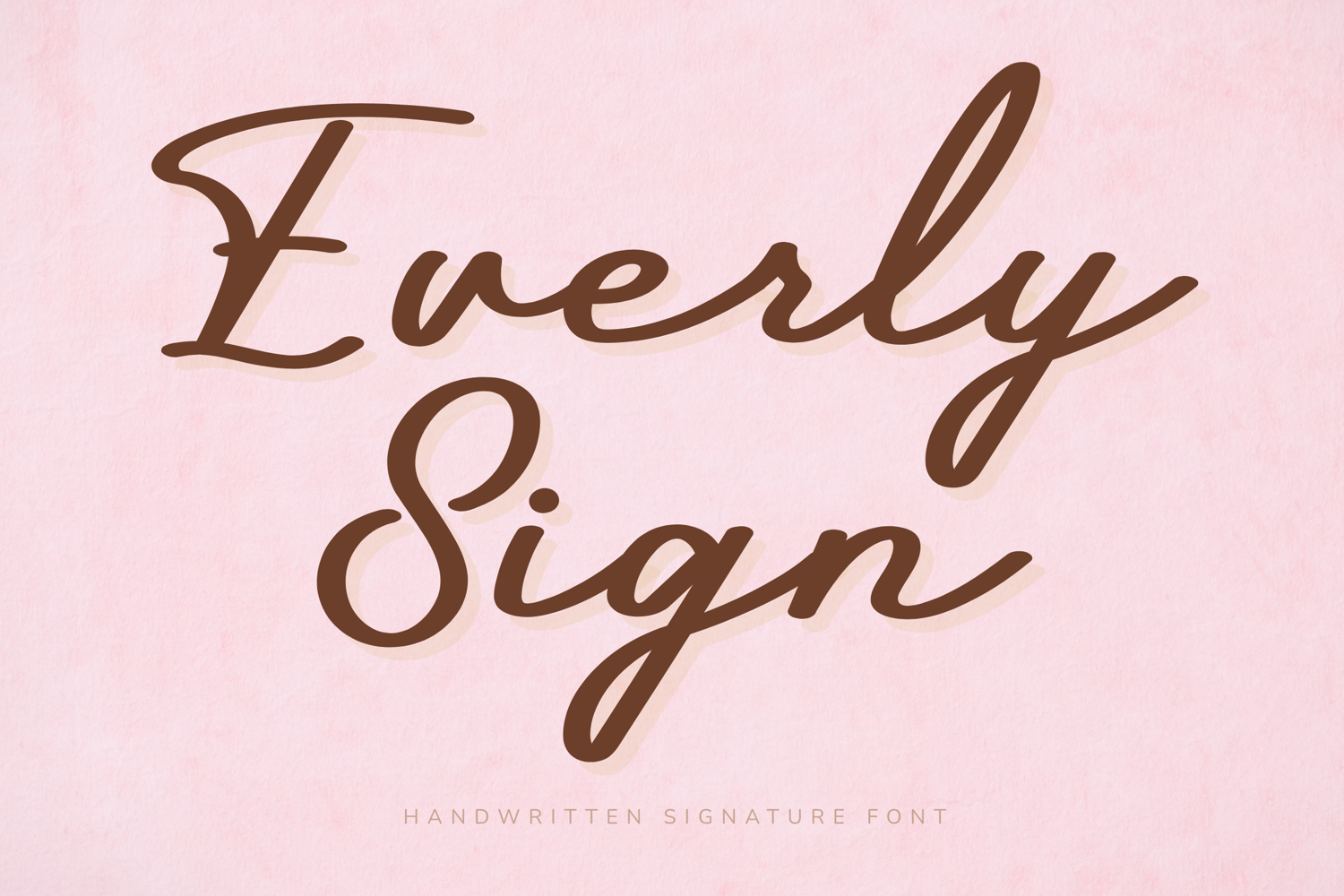
Everly Sign - Handwritten Signature Font
Everly Sign – Handwritten Signature Font
Everly Sign is a graceful and sophisticated handwritten signature font designed to bring a soft, feminine, and luxurious touch to your creative projects. With its flowing strokes, elegant loops, and authentic handwritten feel, this font perfectly captures the beauty of modern signatures.
Inspired by the timeless charm of the name “Everly,” this font feels romantic, stylish, and effortlessly refined. Everly Sign is ideal for boutique branding, wedding invitations, photography logos, cosmetic packaging, and luxury stationery.
Key Features:
Uppercase and lowercase letters
Numbers and punctuation
Elegant handwritten signature style
Smooth flowing connections
Natural pen strokes
Feminine and luxurious appearance
Perfect For:
Luxury logos
Signature branding
Wedding invitations
Photography watermarks
Beauty packaging
Boutique labels
Social media graphics
Business cards
Fashion branding
Best Use Cases:
Boutique logos
Wedding stationery
Branding signatures
Photography signatures
Cosmetic packaging
Instagram content
Brand Mood:
Romantic
Feminine
Elegant
Sophisticated
Luxurious
Timeless
Design Style:
Everly Sign features delicate curves and natural handwritten motion that create a refined signature aesthetic. The thin yet expressive strokes provide an authentic and upscale look, making every design feel elegant.